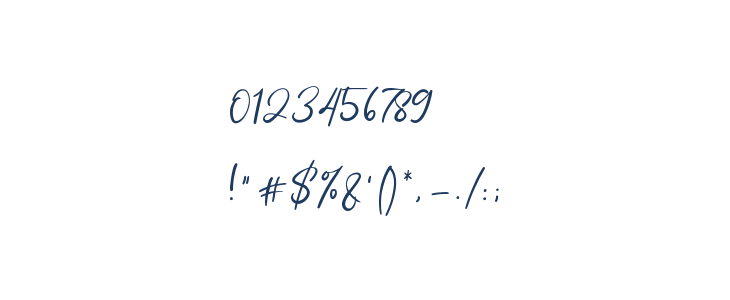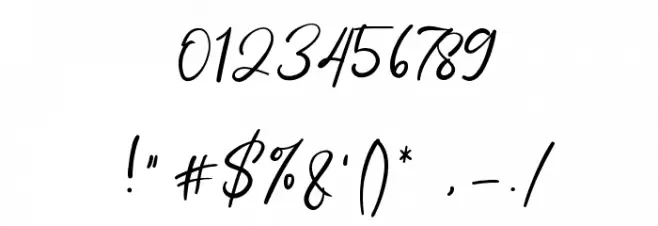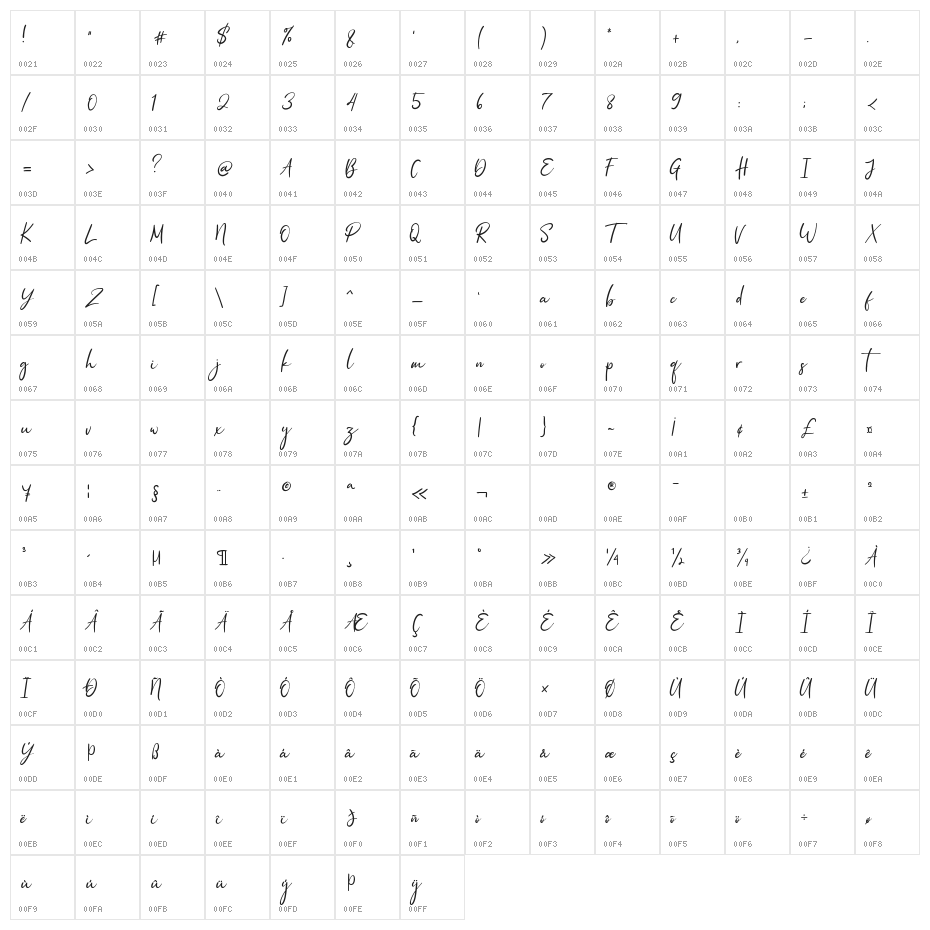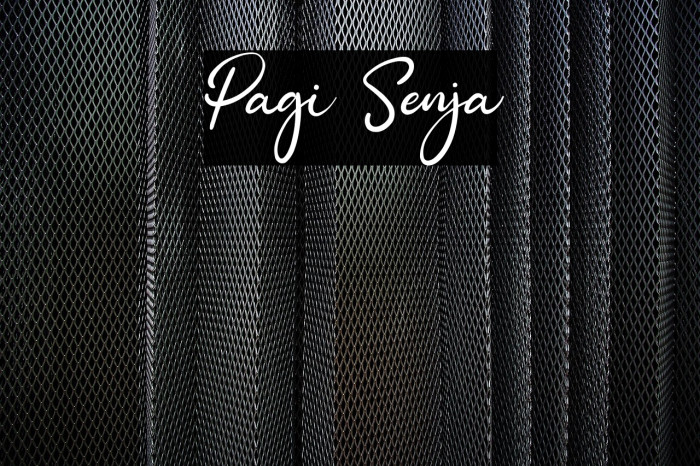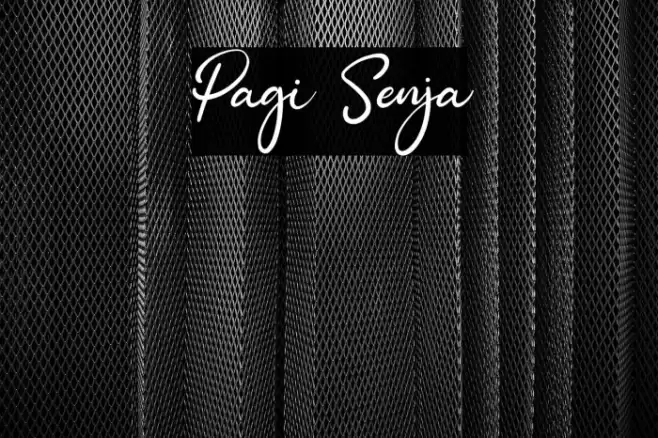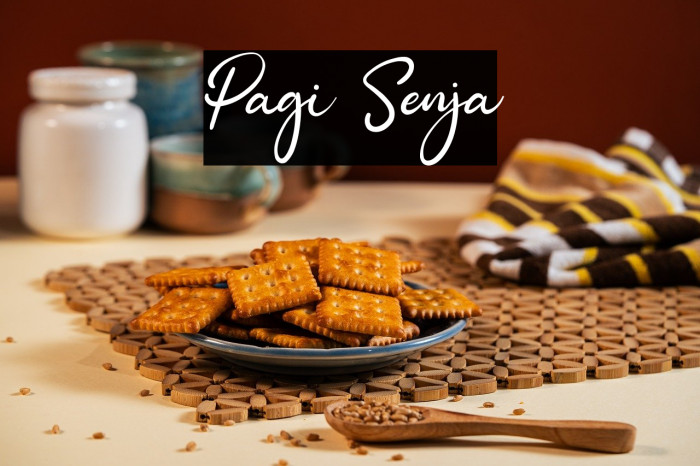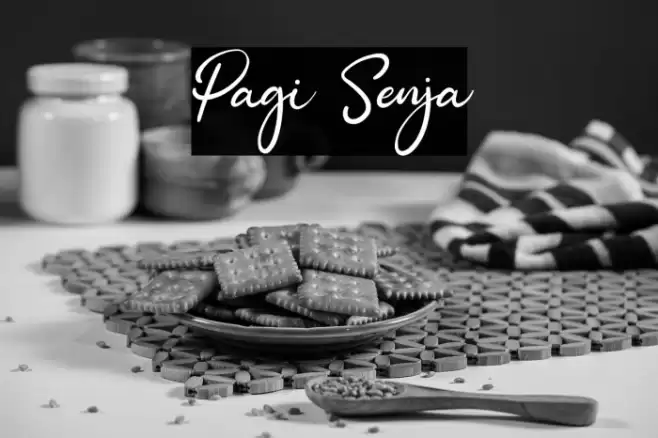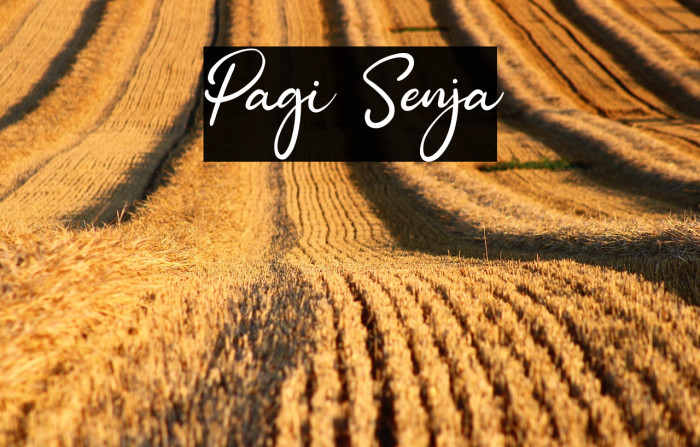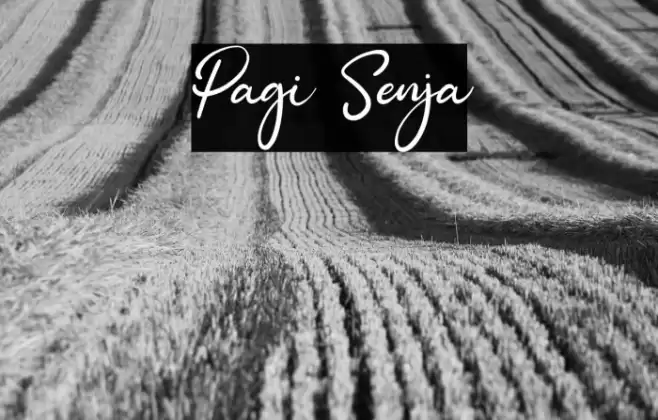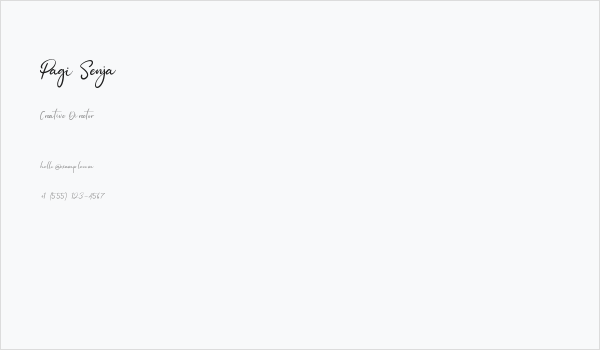
Pagi Senja Font
Pagi Senja Description
This font exudes a modern, handwritten style with a touch of elegance and fluidity. The characters are crafted with a natural flow, mimicking the strokes of a calligraphy pen. Uppercase letters are bold and slightly elongated, giving a sense of grandeur, while the lowercase letters maintain a delicate and consistent rhythm. The numerals are well-balanced, complementing the overall aesthetic. Special characters are seamlessly integrated, enhancing the font's versatility. The font's design is ideal for projects that require a personal and artistic touch, such as invitations, branding, and social media graphics.
| Proposed Projects | Ideal for invitations, branding, social media graphics, and artistic projects. |